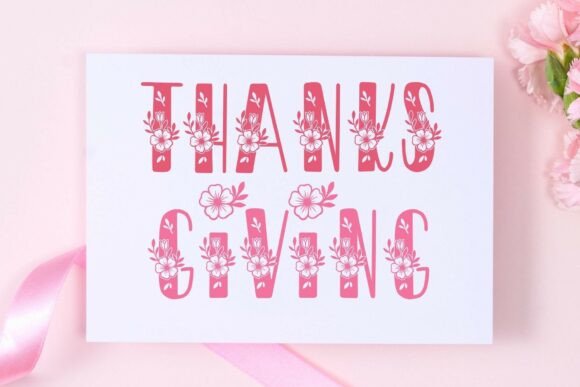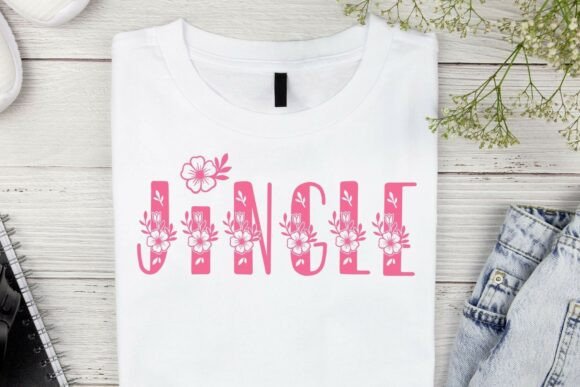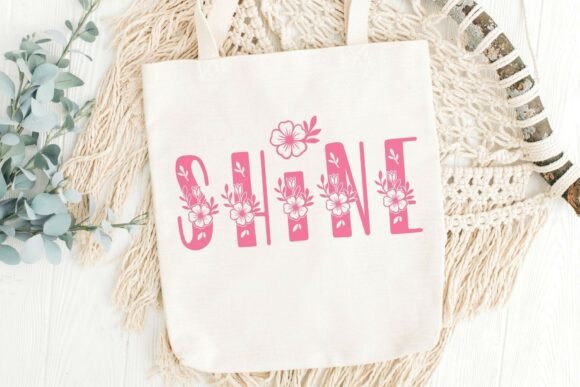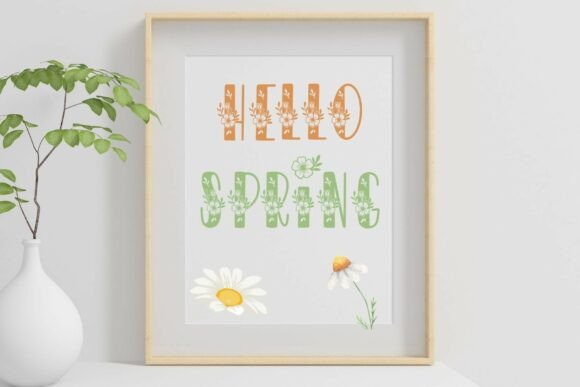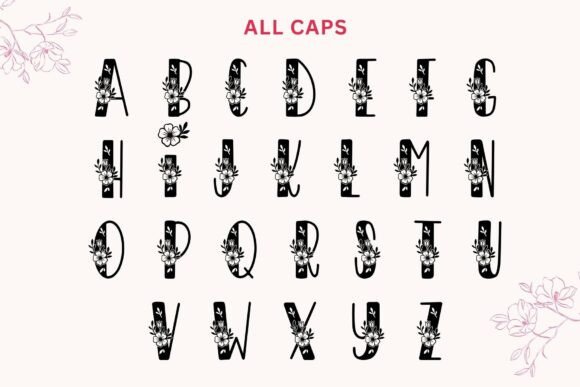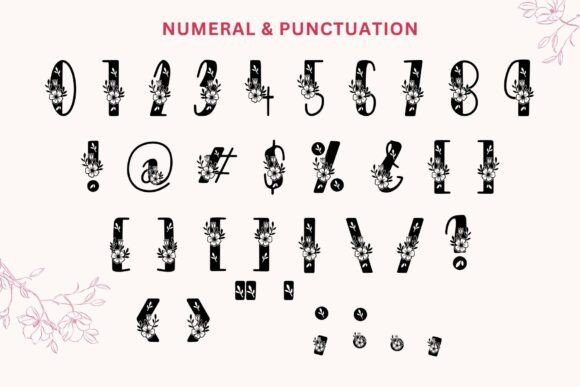
Introduction to Floria Font
Have you ever been working on a creative project, pouring your heart and soul into a design, only to feel like it’s missing that special something? Perhaps it’s a romantic wedding invitation, a whimsical t-shirt design, or a charming home decor item. Whatever it is, the right font can make all the difference. That’s where the stunning Floria Font comes in – a beautiful, floral decorative font that will add an extra touch of elegance and creativity to your work.
As a designer, you know how valuable a high-quality font can be. It’s not just about aesthetics; it’s about conveying the right message and emotions to your audience. And that’s exactly what the Floria Font does – it brings a fresh, botanical charm to your designs, making them stand out from the crowd.
Key Features of Floria Font
- High-quality, vector-based design with transparent background, ideal for creative projects requiring precision and flexibility.
- Features a unique, elegant design that can be used for a wide range of applications, from logos and branding to typography and graphics.
Honest Review: Floria Font
As a designer, I’m always on the lookout for high-quality design resources that can elevate my creative projects. I recently stumbled upon the Floria Font, and I’m excited to share my thoughts on it.
- High-quality glyphs and characters make it perfect for body text.
- The transparent background option allows for seamless integration with various design elements.
- The font’s elegant and modern design makes it suitable for a wide range of creative projects.
- The font may not be ideal for headings or titles due to its relatively small size.
Overall, the Floria Font is a solid addition to any designer’s toolkit. While it may have some limitations, its high quality and versatility make it a great resource for designers working on creative projects. I’d definitely recommend it for free download and use in your next design project.
Introduction to Floria Font
Tips for Getting the Most Out of Floria Font
To get the most out of Floria Font, experiment with different font sizes, colors, and styles. Combine it with other design elements, such as images and shapes, to create visually appealing compositions.
Floria Font is perfect for various design projects, including wedding invitations, branding materials, and social media graphics. Its elegant style and transparent background make it an ideal choice for any creative endeavor.